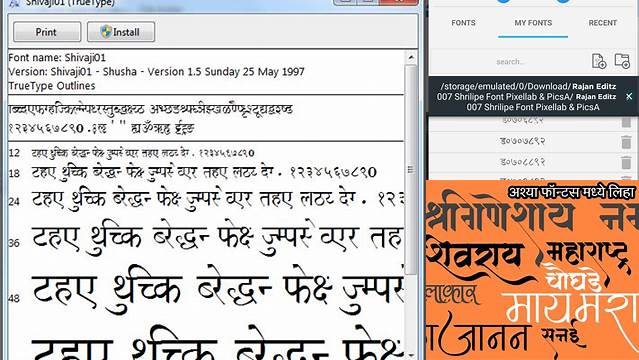
Best Marathi Fonts: Download & Installation Guide
Hey guys! Ever found yourself staring at a blank document, wanting to add that authentic Marathi touch but feeling lost in a sea of fonts? Fear not, because we're diving headfirst into the world of Marathi fonts! This guide is your ultimate resource, covering everything from finding the perfect font to getting it up and running on your system. We'll explore the nuances of Marathi script, discuss the best fonts available, and provide step-by-step instructions to make the whole process a breeze. Whether you're a seasoned designer, a student working on a project, or just someone wanting to add a cultural flair to your digital content, this is the place to be. Get ready to unleash your creativity and make your Marathi text shine! Let's get started and transform your digital canvas with the beauty of the Marathi language.
1. The Beauty and Complexity of Marathi Script
Marathi, a vibrant Indo-Aryan language spoken by millions, boasts a rich script that's a treat for the eyes. The Devanagari script, used for writing Marathi, is known for its elegant curves and unique character combinations. Understanding the basics of this script is crucial to appreciate the fonts designed for it. The script includes vowels, consonants, and various matras (vowel modifiers) that add to its complexity. Each letter and its variations create a visual symphony that represents the beauty of the language. The intricate design of the characters requires specialized font design to ensure readability and aesthetic appeal. When we talk about Marathi fonts, we are not just talking about a simple set of letters; we are dealing with a complex system of signs and symbols that must be rendered accurately. It's really interesting, trust me! The careful arrangement of these elements ensures that the words flow gracefully and capture the essence of the spoken language. So, selecting the right font is much more than just choosing a pretty face; it's about choosing a font that accurately represents the script and respects its cultural context. This is so important, and understanding this will set you apart! Think about the difference between a well-designed font and one that just doesn’t quite fit. It's similar to the difference between a tailored suit and an off-the-rack one. Pay attention to how the letters connect and interact; this will give you an appreciation for the art behind Marathi fonts. Remember, a well-chosen font can elevate your content, making it more engaging and visually pleasing.
2. Choosing the Right Marathi Font: Key Considerations
Choosing the ideal Marathi font involves considering several key aspects to ensure that the text is both readable and visually appealing. First and foremost, you need to think about readability. What's the point of a fancy font if nobody can easily read it? The font should be clear and easy on the eyes, especially for larger blocks of text. Font styles, the style and personality of the font, also matter. Do you want something modern and clean, or something traditional and ornate? The style should match the tone and purpose of your content. If you're creating a formal document, you'll probably want a more conventional font. For creative projects, you can get more experimental. Another important factor is font support. Does the font cover all the characters and matras you need? Some fonts have complete character sets, while others may be limited. Checking for support will prevent any unexpected rendering issues. Then there’s the overall visual appeal. Does the font have an aesthetic that you love? Does it feel right for your project? This is where your personal preference comes into play. And it should be fun! You can play with different fonts, but be careful to avoid clashing styles. Consistency is key for professionalism. Make sure that it fits with your project's overall design. Consider how the font will look in different sizes and on various backgrounds. The best Marathi fonts will have a clean design, with each letter distinctly rendered, so it does not overlap and the text remains clear. Now, let's not forget licensing. Some fonts are free, while others require you to pay for a license. Make sure you understand the terms of use before you download and start using a font. Some fonts have limitations on commercial usage, so always check the fine print. Once you consider all these factors, you can start exploring the many fonts that fit your needs. The right choice can significantly improve the look and feel of your work. Good luck!
3. Top Marathi Fonts for Every Project
Alright, let's dive into some top Marathi fonts that can elevate your projects. Here's a curated list of some of the best fonts out there, each offering a unique personality and style. First up, we have Shivaji01. This is a very popular choice, known for its clean lines and excellent readability. It's a solid pick for documents, websites, and presentations. Shivaji01 strikes a great balance between traditional aesthetics and modern functionality. Next is DevLys 010. Known for its classic design, it's great for formal documents and projects that require a sense of tradition. DevLys 010 gives a sense of authenticity to your Marathi content. The next one is Kruti Dev 010, a very popular choice. This is a very popular choice, known for its wide range of characters and compatibility, especially among those who work with older documents or systems. Kruti Dev 010 offers a sense of familiarity and consistency. Now, what about the bold ones? Well, try Nirmala UI. This font, though not exclusively Marathi, is designed with Devanagari support and is available on most Windows systems. Its clean and modern style is great for user interfaces and digital content. Another favorite is Balaji. This font has a unique, slightly artistic flair, making it perfect for creative projects. It's got a distinctive visual style and will make your content stand out. Last, but not least, check out the fonts from Google Fonts. Google Fonts has a growing collection of Marathi fonts, like Mukta, which is a popular choice for its versatility and readability. It provides a modern look while still maintaining excellent legibility. To make your choice even easier, you can often test these fonts on different sample texts and in various sizes to see how they look in action. Whether you are looking for a professional, traditional, or artistic font, this list offers something for everyone! Experiment with different fonts, find what suits your needs, and enjoy the amazing journey of creating visually appealing content.
7. Utilizing Marathi Fonts in Microsoft Word
Let's explore how to use your newly installed Marathi fonts in Microsoft Word. First, open a new or existing Word document. Next, you’ll want to find the font selection menu, which is usually located in the Home tab, at the top of the window. Here, you'll see a dropdown menu showing all your installed fonts. Scroll down to find your new Marathi font. If you are having trouble, you may use the search bar to search for your font name. Once you’ve found it, select it. Now you can start typing in Marathi, using your chosen font! If you are copying and pasting text, ensure that the font is selected before you paste the text. To make sure the text is readable, adjust the font size. Usually, it will be a good start to use a size between 12 and 16 points. Also, consider bolding or italicizing the text to add emphasis. You can also adjust the paragraph spacing. Word gives you options to customize line spacing and paragraph spacing, which can enhance readability. Consider aligning your text. You can align it to the left, right, center, or justify it to best suit your content. Also, don’t forget to save your document. When saving, be sure to check that the font is embedded in your document. This will ensure that the font displays correctly on other computers that might not have the font installed. To embed fonts, go to the “File” menu, then select “Options”. In the “Save” section, check the box that says, “Embed fonts in the file”. This will embed the fonts within the document itself. This guarantees that your Marathi text will appear correctly when sharing the document. Now, the next time you create a Word document, you're all set to add a touch of Marathi magic. You'll be able to create documents that are professional, aesthetically pleasing, and culturally rich.
8. Using Marathi Fonts in Google Docs: A Simple Guide
Let's get you set up with Marathi fonts in Google Docs! Using Marathi fonts in Google Docs is straightforward. Begin by opening or creating a new document in Google Docs. Once you’re in your document, you'll see the font selection menu in the toolbar at the top of the screen. Click on the font dropdown menu. You will see a list of available fonts. If your chosen Marathi font is already there, you can simply select it. If it's not, here's what to do next. Select the “More fonts” option at the top of the font menu. This will open a window where you can browse and add fonts. In the “More fonts” window, you can use the search bar to find your desired Marathi font. You might need to type in the name of the font you are searching for. After you locate the font, click on it to select it. Then, click on the “OK” button to add it to your Google Docs. After adding your new font, go back to your document. Now, select your Marathi font from the font dropdown menu. You can start typing your content! Remember to adjust the font size to a comfortable level. Typically, fonts sizes between 12 and 16 points are ideal for readability. You can also use bold, italics, or underline to add emphasis to your text. Take some time to adjust the line spacing and paragraph spacing to enhance the readability of your content. Google Docs lets you customize these aspects to perfectly fit your needs. When you are finished with your document, you can share it with others. Because Google Docs uses web fonts, the person you share it with will see it the same way that you do. Now you're all set to create stunning documents! Enjoy creating content with your favorite Marathi fonts.
9. Marathi Fonts for Graphic Design and Creative Projects
Let's explore the use of Marathi fonts in graphic design and creative projects. Marathi fonts offer a great way to add cultural flair and personality to your designs. The choice of font is super important! It sets the tone and mood of your project. For graphic design, you'll be using applications like Adobe Photoshop, Illustrator, or Canva. In these programs, you'll find the same font selection menus we discussed earlier. After you install your font, you'll be able to select it from the font dropdown menu. The style of the font will greatly impact your project. A traditional font can give your work a classic, formal feel. Modern fonts are great for contemporary designs and can make your work feel fresh and relevant. The font you choose should match the theme of your project. If you're designing a poster for a traditional Marathi event, use a font with a classic aesthetic. If you're creating something modern, select a font that suits that style. Also, the readability of your fonts is really important! Make sure that your font is clear and easy to read, especially in larger sizes. The style of the font should complement the imagery. It's essential to be consistent in your design, especially when using a Marathi font. Do not mix too many different fonts and keep the overall style in line. Be creative and have fun! Experiment with different font sizes, colors, and styles. Create multiple versions of your design and see which version works best. When creating your designs, you can use different text effects, such as shadows and outlines, to add depth and interest to your text. Graphic design is all about visual communication! Your goal is to convey your message effectively. So, choose fonts that align with your message. Remember to always keep the audience in mind! Your target audience should always influence your design choices. Consider their tastes and preferences. Be aware of the licensing requirements. If you are creating designs for commercial use, make sure you are complying with the license for your chosen font. Creating stunning visual content with Marathi fonts can be a rewarding experience. So, have fun with it!
10. Best Practices for Marathi Font Pairing
Pairing Marathi fonts effectively is key to creating visually appealing and readable designs. Pairing involves selecting two or more fonts that complement each other. The goal is to create a cohesive and harmonious look. Start by selecting a primary font. This is the main font that you will be using for headlines, titles, and large blocks of text. The primary font should be bold, easy to read, and have a strong visual impact. Next, choose a secondary font. This font should complement the primary font. You will use it for body text, subtitles, or additional design elements. A good rule of thumb is to select fonts with contrasting styles. Contrast will help guide the reader’s eye. Do not be afraid of experimenting with different combinations. Pair a bold, modern font with a more traditional serif font. For instance, a clean sans-serif font with a classic Devanagari font can work great. Remember, it's all about balance. The key is to avoid clashing styles and create visual harmony. The selection process often starts by considering the mood you want to convey. Choose fonts that match the tone and style of your content. For instance, a formal document might benefit from a more traditional font pairing. A modern design could use a more playful and contemporary combination. The readability of your content is essential! Make sure that the font pairings are easy to read. The use of different weights and sizes can help with readability. Make sure to test your font pairings in different sizes. Test them on both larger headlines and smaller body text. This is important to ensure that the fonts work well at all sizes. Experiment! The best way to find the right combination is through trial and error. Try out different font pairings until you find ones that work for your project. Consider using online tools, such as font pairing tools, to find inspiration. These tools can suggest pairings based on the style and mood you want to achieve. Be consistent with your font pairings. Stick to a small number of fonts to maintain consistency throughout your design. Make sure to review the licenses of your fonts to make sure that your use is within the terms of the license. Be careful when using fonts from different sources. When pairing fonts, always strive for balance. Balance is essential to create harmony in your design. Have fun and enjoy creating! It might be fun to explore different font combinations and create visual masterpieces!
11. Common Issues and Troubleshooting Marathi Fonts
Sometimes, you might run into some issues when dealing with Marathi fonts. But do not worry; here are some common issues and how to troubleshoot them! One common issue is the font not appearing in your application. This often happens if the font is not correctly installed. First, make sure you've followed the correct installation steps for your operating system. Double-check that the font is installed in the system's font folder. If the font still doesn't appear, try restarting the application or your computer. Clearing the font cache can also sometimes help with this issue. Another common problem is that the characters may appear as boxes or incorrect symbols. This indicates that the font does not support the specific character, or that it’s not fully installed. Make sure that the font supports all the characters you need. Try a different font that has full support for Marathi script. The font might not be correctly rendering, so make sure your system has the latest font drivers. Another common issue is that the text may appear misaligned or have incorrect spacing. These issues can be caused by compatibility problems or font rendering issues. You can try adjusting the spacing settings of your text. You can also try a different font that is known to be compatible with the application. You must always check the font file to ensure that it is not corrupted. If the file is corrupted, you'll need to download it again. And you can try installing it. Remember to always keep your operating system and applications up to date. Software updates often contain fixes for font rendering problems. If you are still having problems, check online forums and communities. There, you can often find help from other users who may have faced the same issues. If all else fails, consider contacting the font provider. They can provide technical support. Always ensure that your application supports the font you are using. Sometimes, the application might have compatibility issues. Try using a different application to see if the problem persists. Troubleshooting can be frustrating. But remember to stay patient and persistent. By following these steps, you should be able to solve any Marathi font issues you encounter.